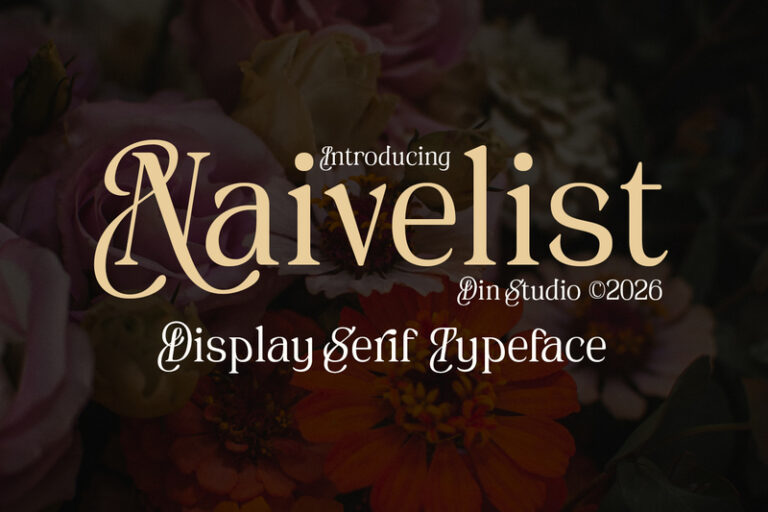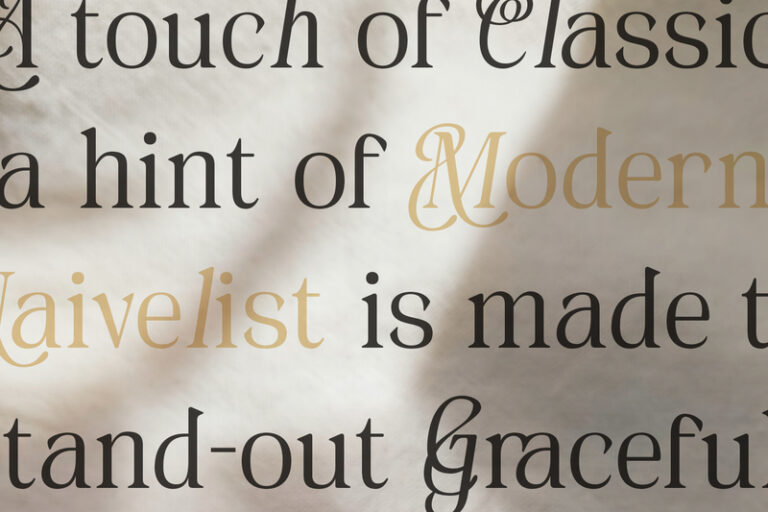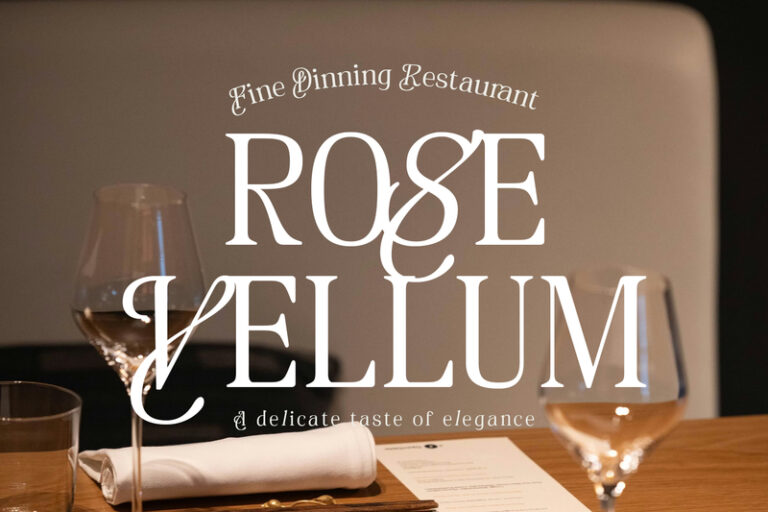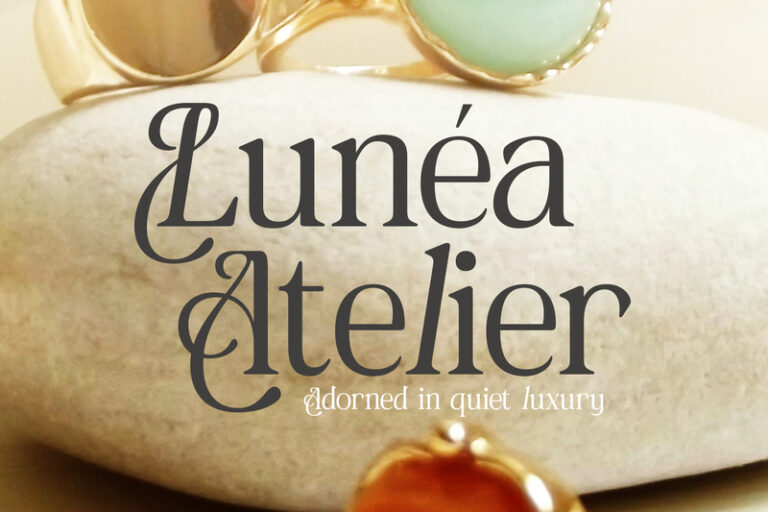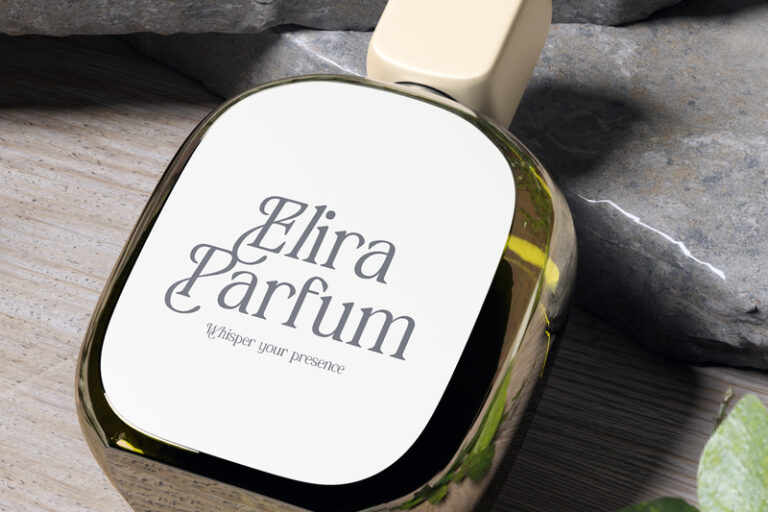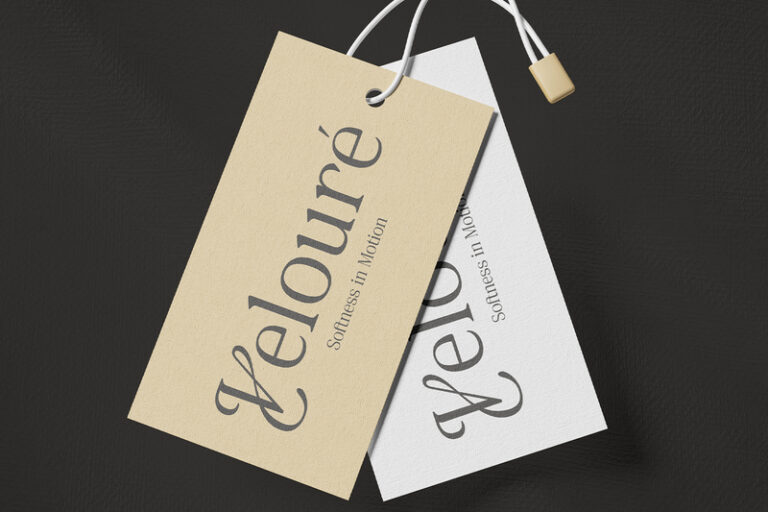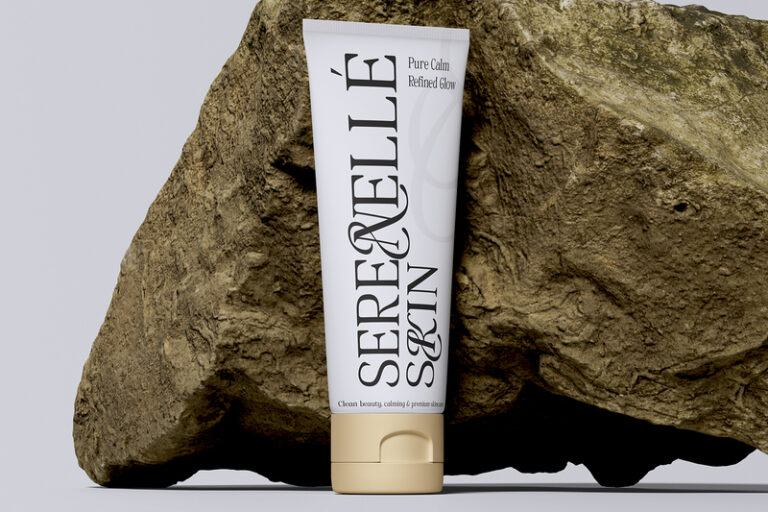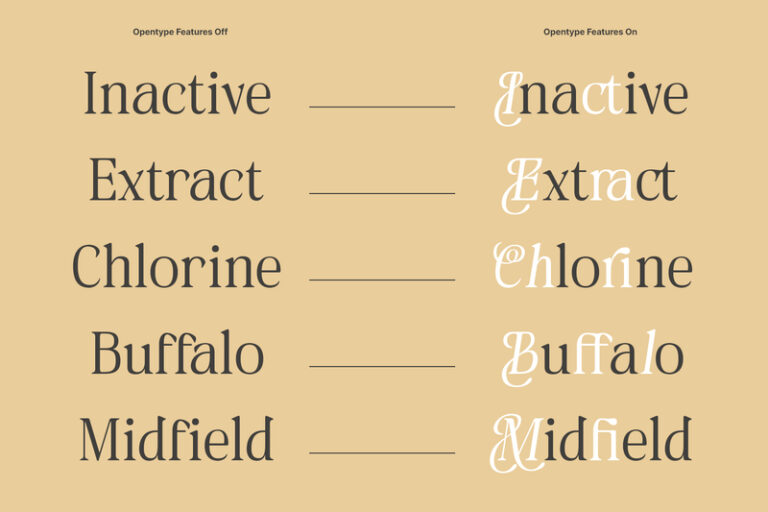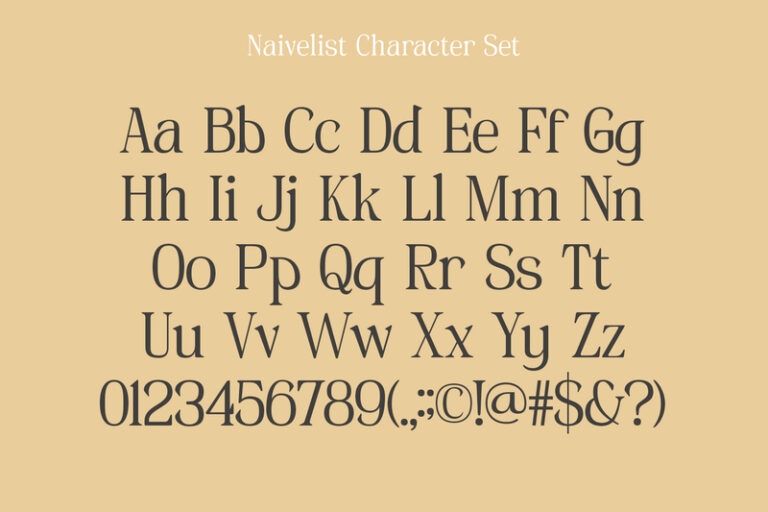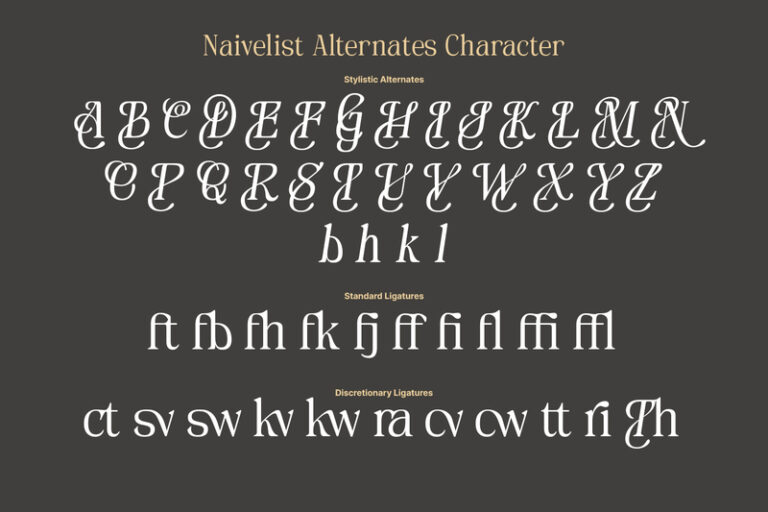
Naivelist – Display Serif Font
Naivelist
Naivelist is a refined serif display font that embodies elegance, sophistication, and modern luxury. Designed with a thin weight and striking visible contrast, this typeface captures the essence of high-end editorial design while maintaining a timeless aesthetic. Its graceful letterforms, sharp serifs, and delicate strokes create a visually captivating experience that instantly elevates any creative project. In addition, enjoy the features here.
- Alternates
- Ligatures
Naivelist fits in logos, quotes, branding, posters, and many more designs. Find out more ways to use this font by taking a look at the font preview.